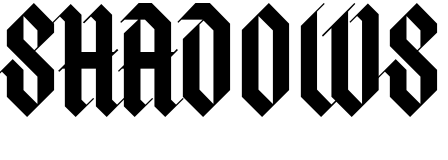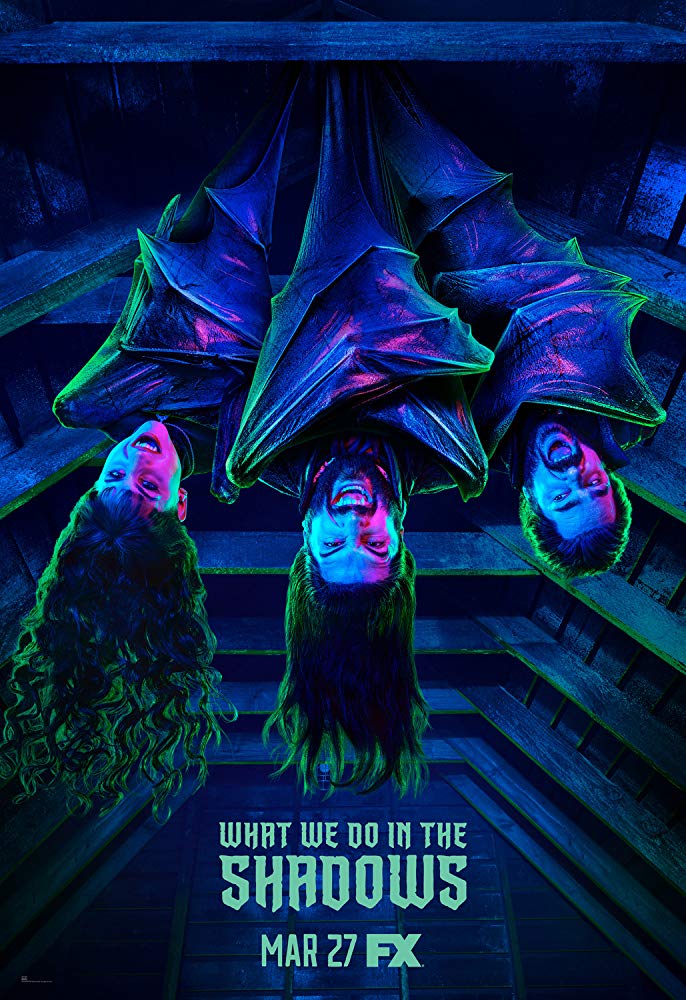
What We Do in the Shadows Font
ComedyWhat We Do in the Shadows is a TV series based on the 2014 film of the same name, following the daily struggles of a group of vampires living in modern-day Wellington, New Zealand.
"What We Do in the Shadows" film title on the poster is typeset in a display font known as Dusk Till Dawn designed by John Roshell and published by Comicraft. Michael Parson's Halja was the blackletter used for the 2014 film poster.